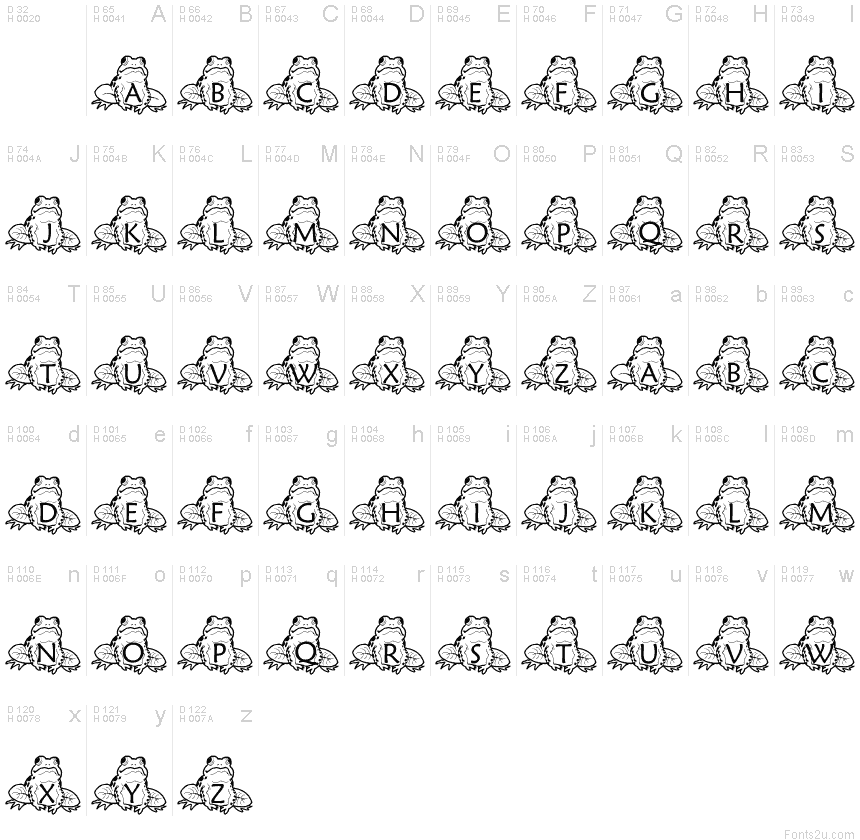
PF Frog Sitting by Planck Foam Scholarly Dragon Press is a free frog caps display font with a playful storybook feel. The letters sit inside squat, front-facing frogs, so the alphabet reads like a row of little mascot illustrations, with spotted backs, webbed feet, and leafy shapes repeating from character to character.
That makes it a natural free font for pond-themed posters, kids' book covers, classroom signs, party invites, and short logo work where the frogs do as much talking as the letters. It works best in brief settings such as title cards, initials, and monograms, because each character arrives as a complete frog badge rather than plain lettering.